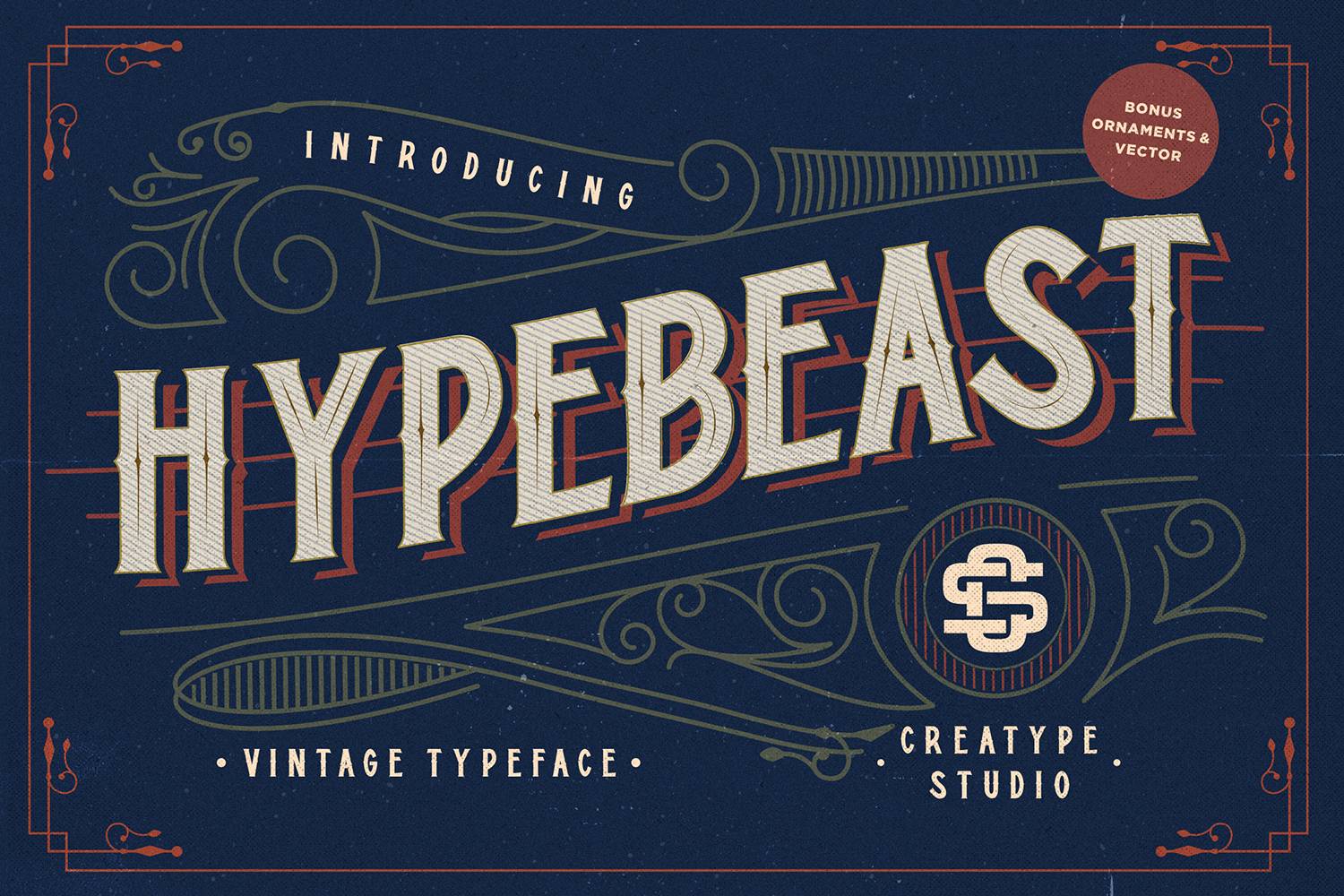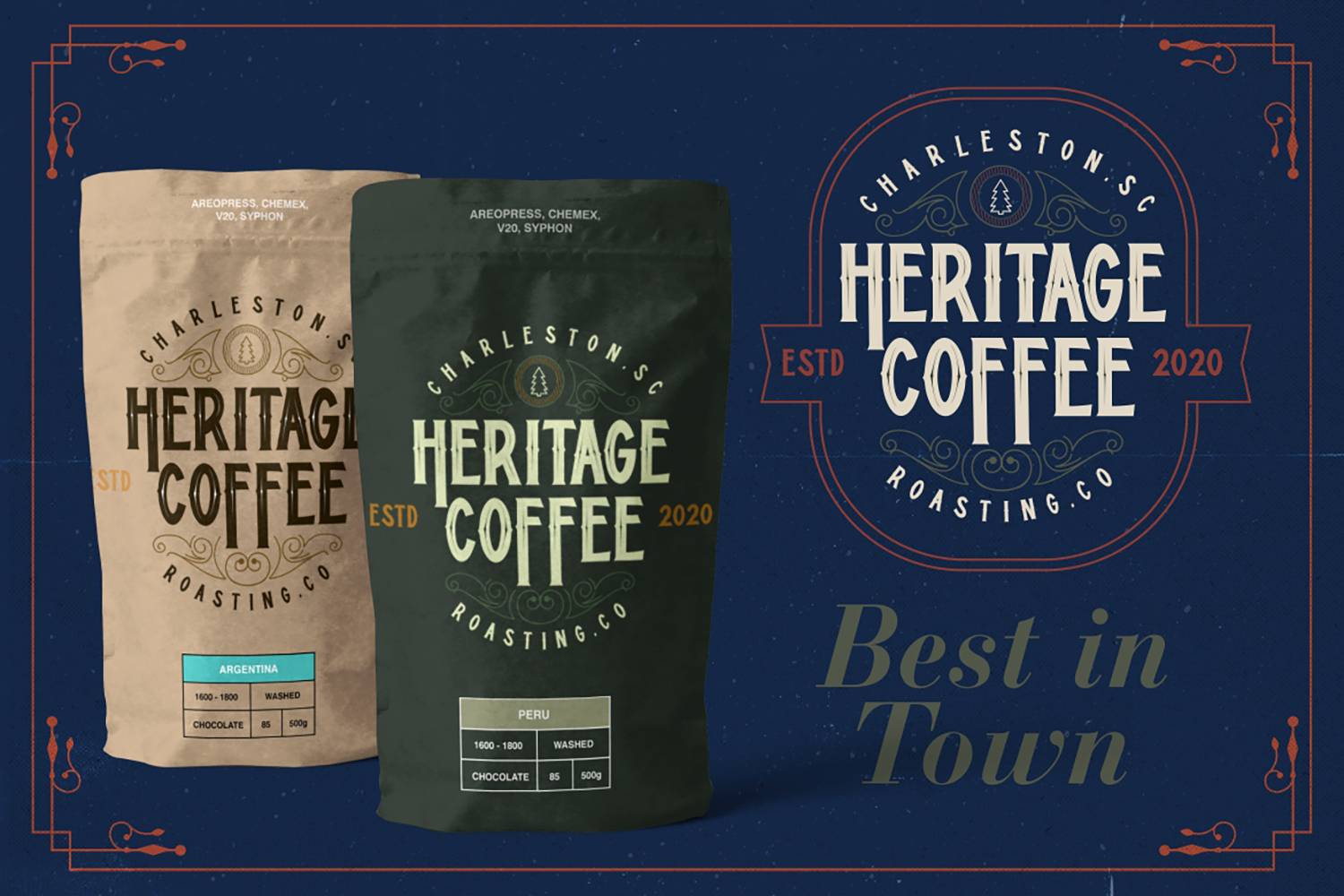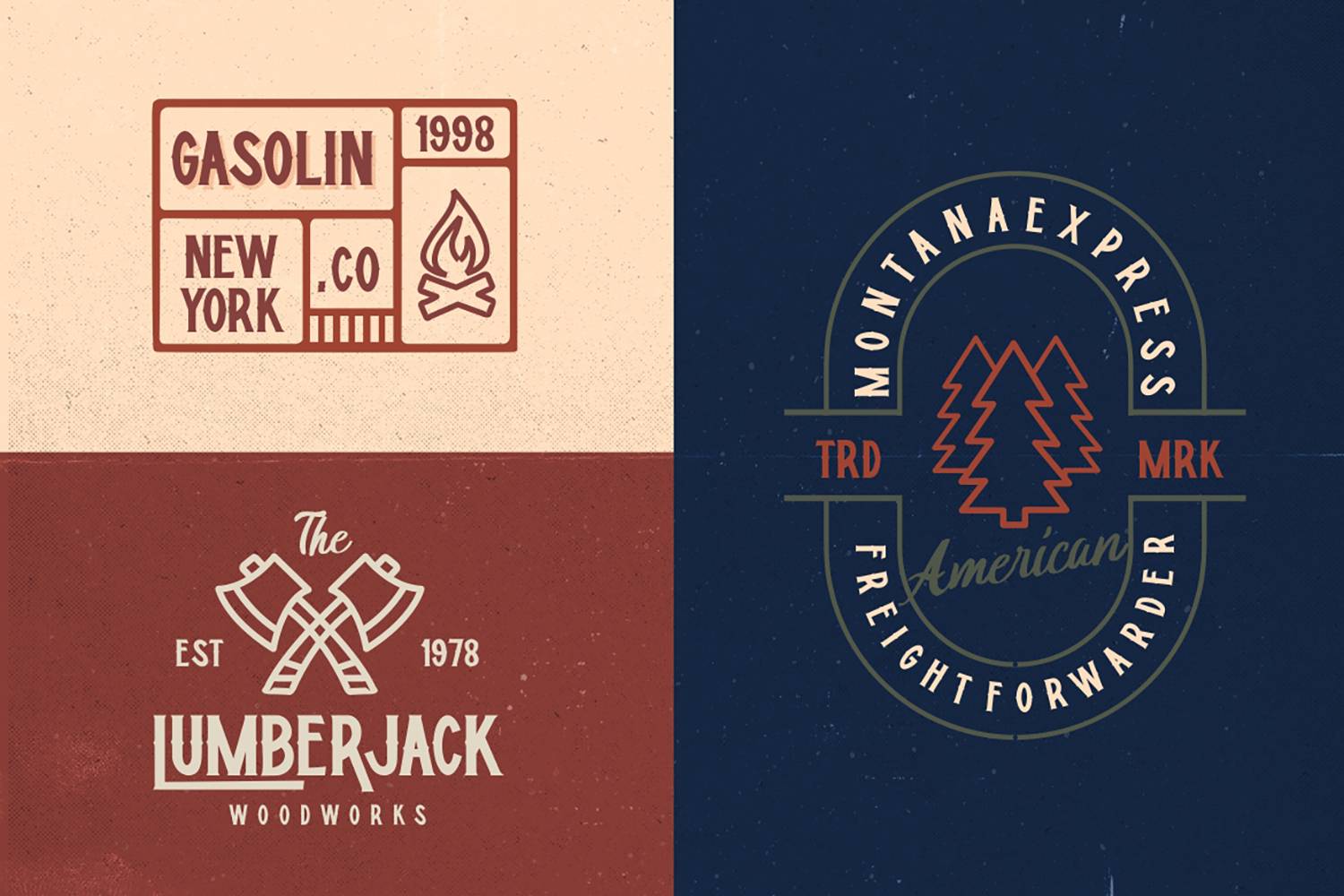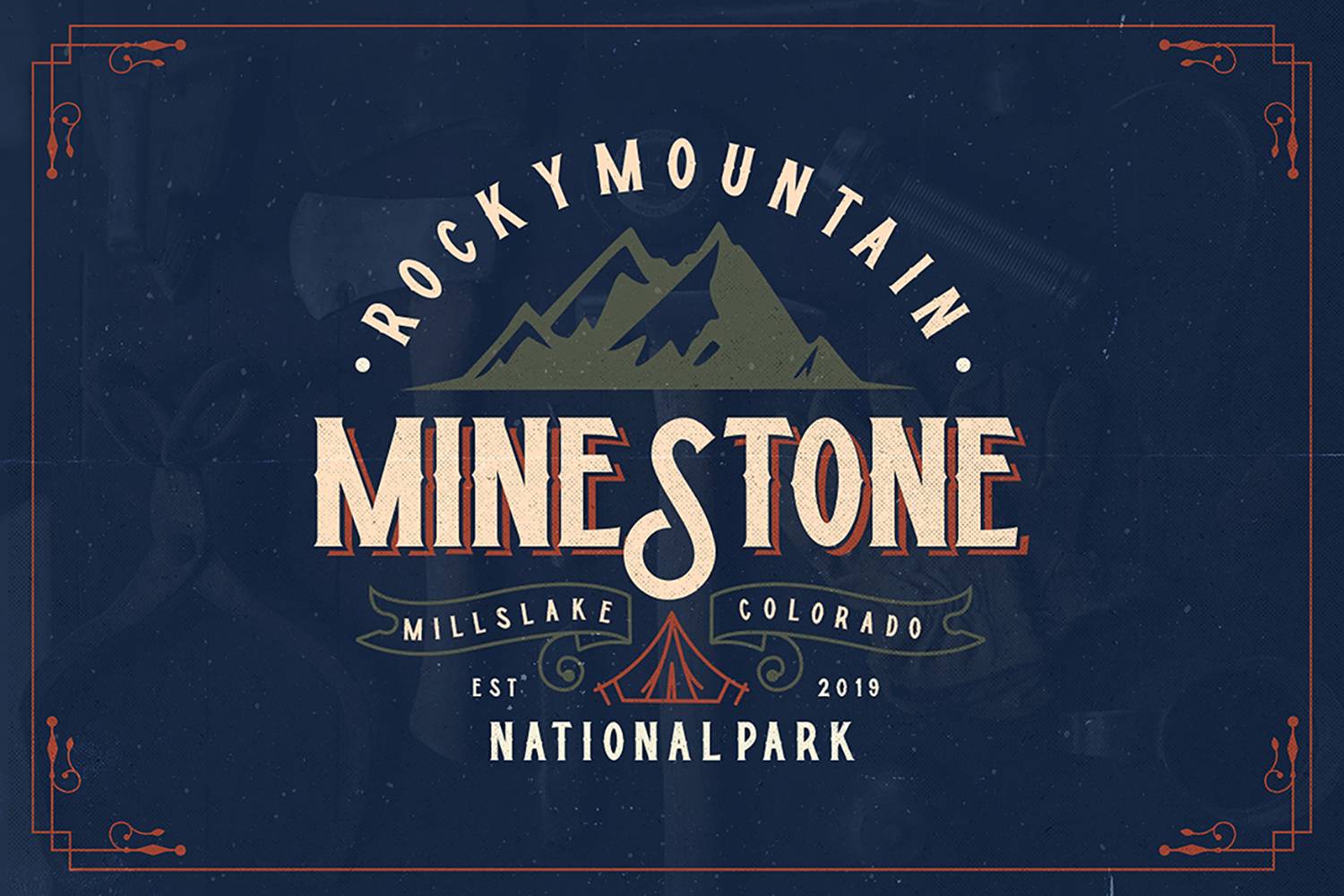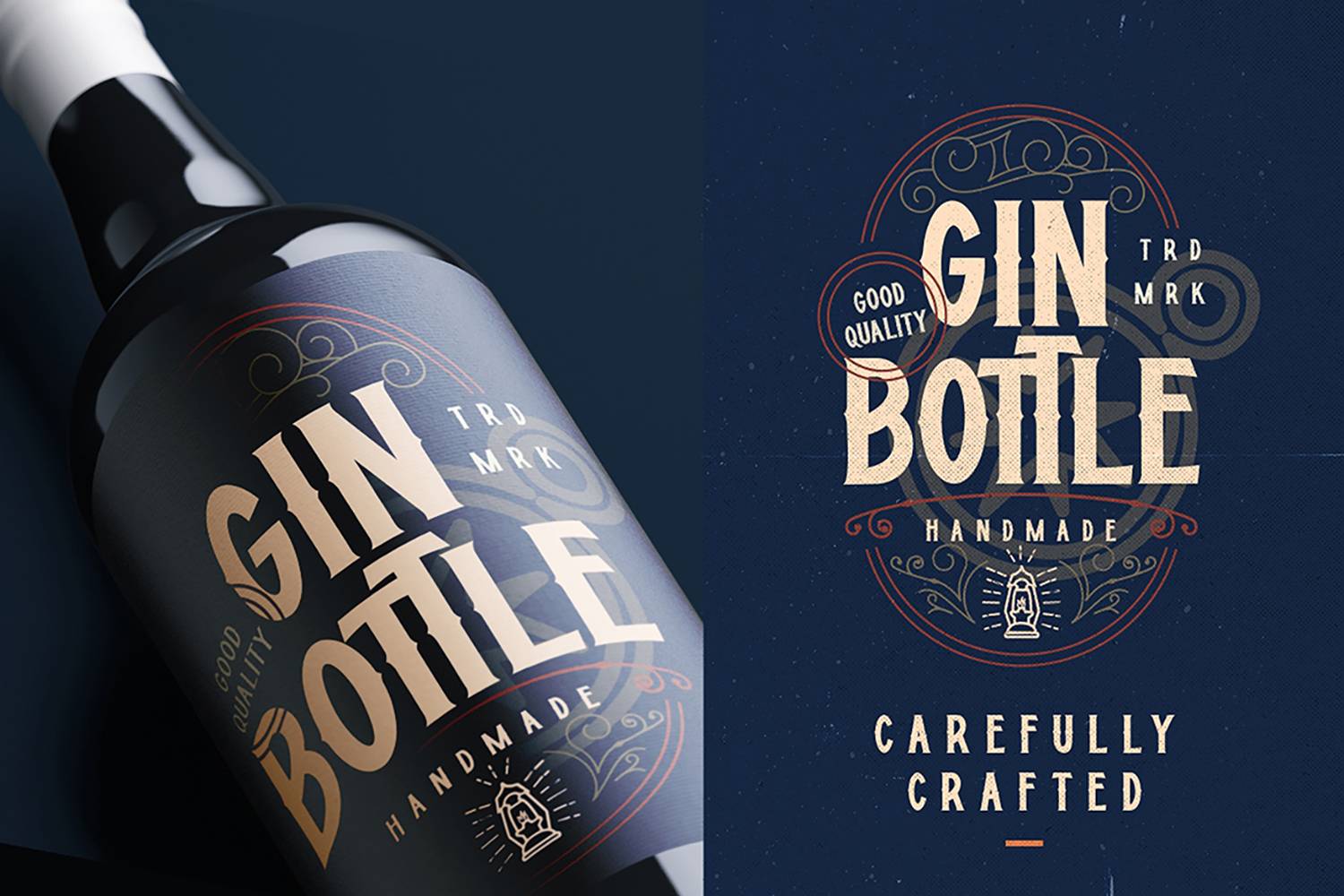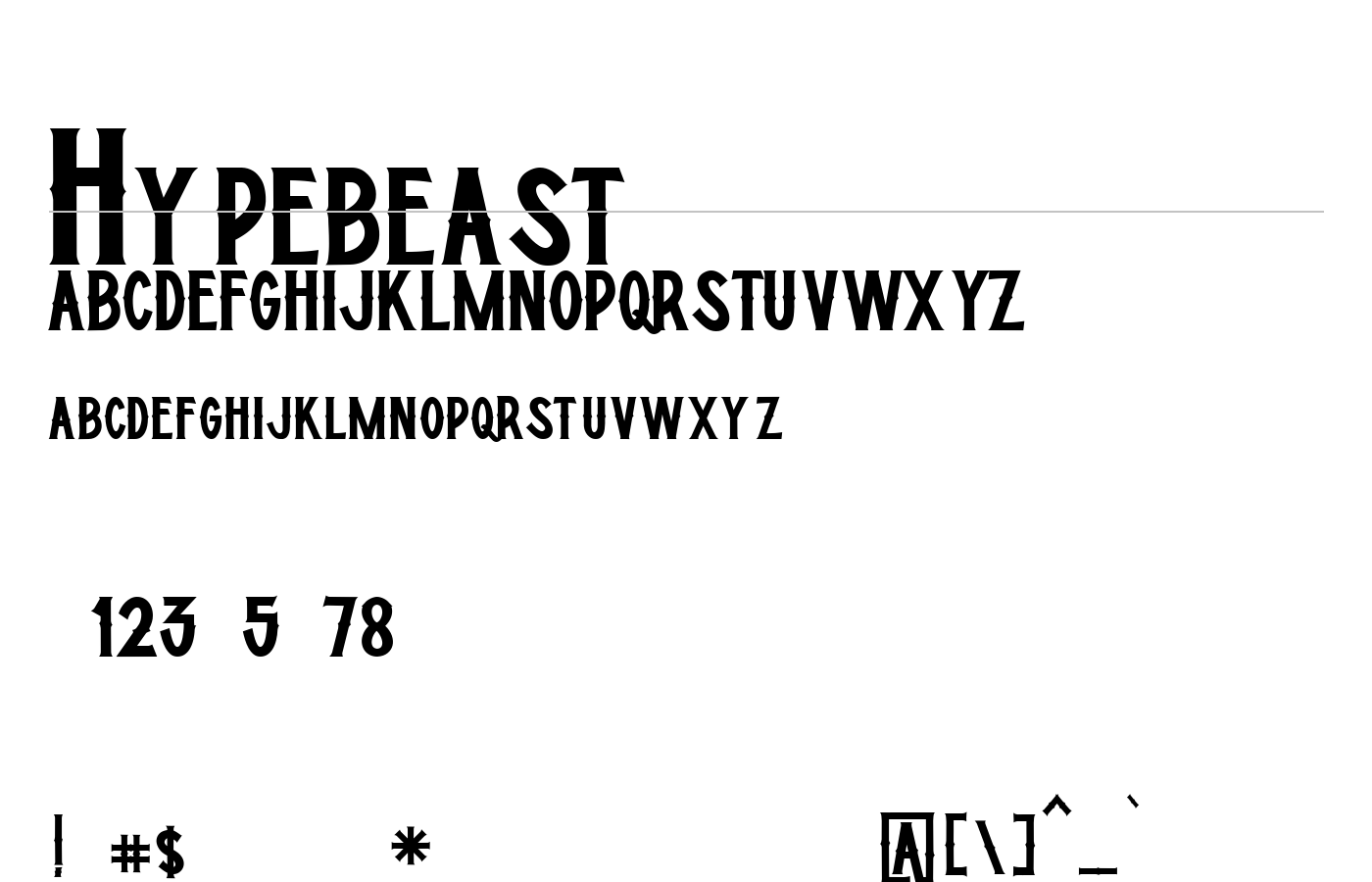
Hypebeast is a bold, condensed serif font with a strong vintage character, featuring high contrast between thick and thin strokes and sharp, bracketed serifs. Its tall, narrow letterforms and unique detail shapes give it a distinctive, edgy personality perfect for striking headlines and logo designs that want to convey boldness and attitude. This font works best in fashion branding, posters, and editorial use where a dramatic, stylish impact is needed.
Hypebeast Font